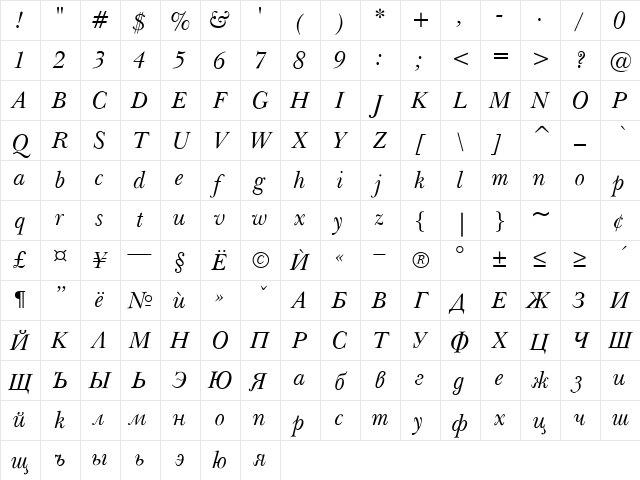
Balkan Italic
Design Context for Balkan
Balkan is a composed and adaptable typeface that performs quietly and consistently across a wide range of design contexts. The slanted form adds forward momentum and visual energy.
Pro Tip: Use Balkan for emphasis, pull quotes, and subheadings where its slanted energy can add rhythm to the layout.